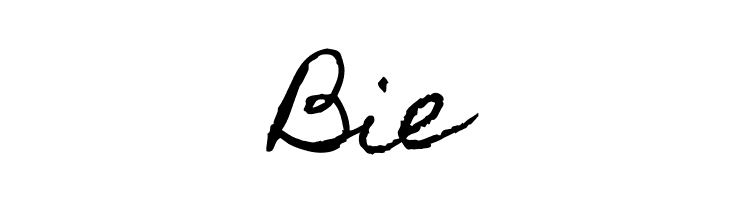
A vintage typewriter-style font with a distressed, nostalgic appearance.
A casual, handwritten cursive font with fluid, connected strokes.
A bold, high-contrast serif font with elongated, narrow characters and sharp serifs.
A bold, dynamic font with angular strokes and a calligraphic flair.
A dramatic, Gothic-inspired font with sharp, angular lines and intricate detailing.
A bold, angular font with a medieval and fantasy-inspired design.
A modern, geometric font with a sleek and uniform design.